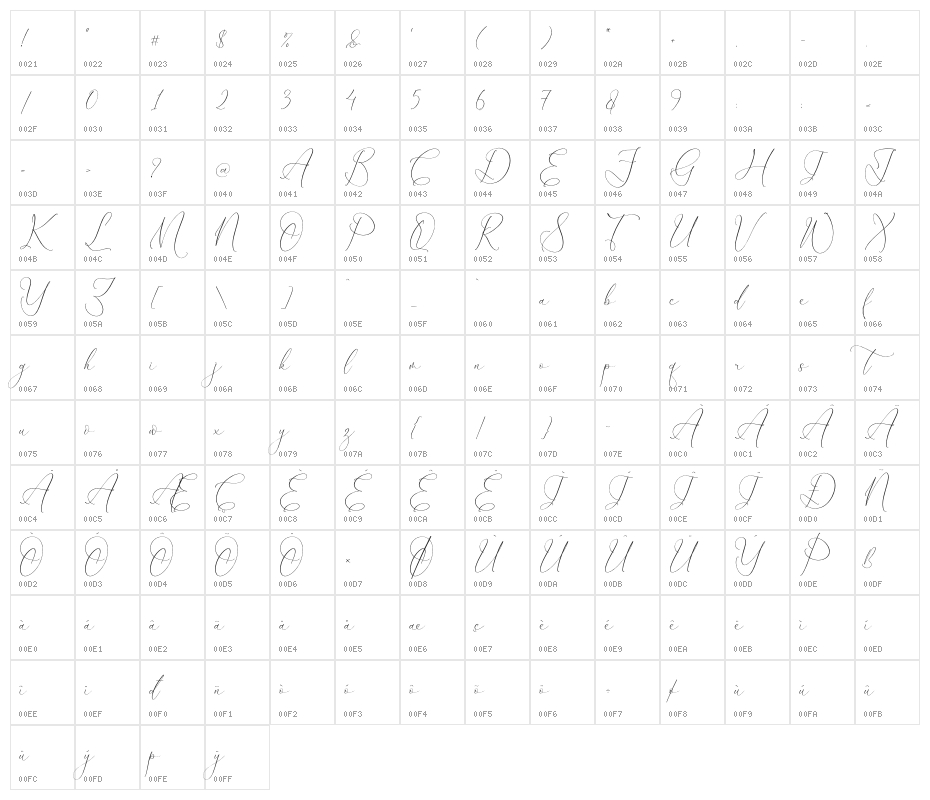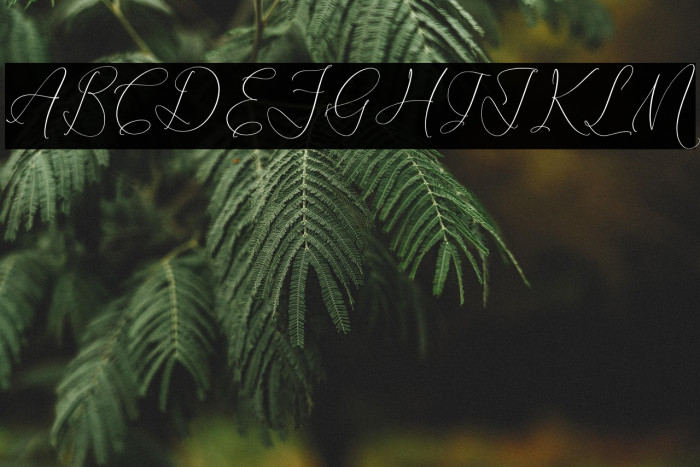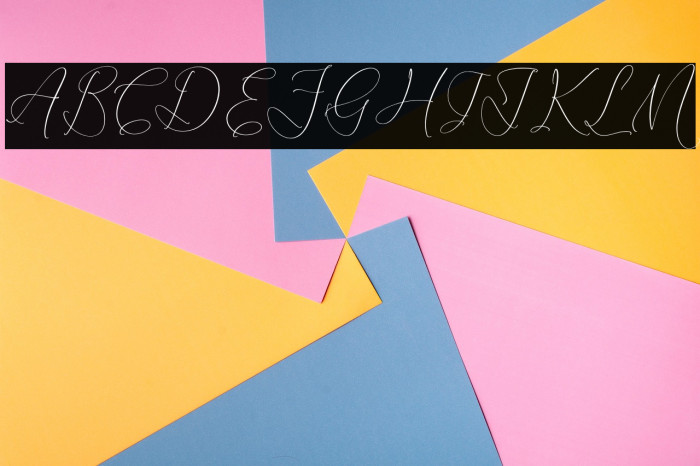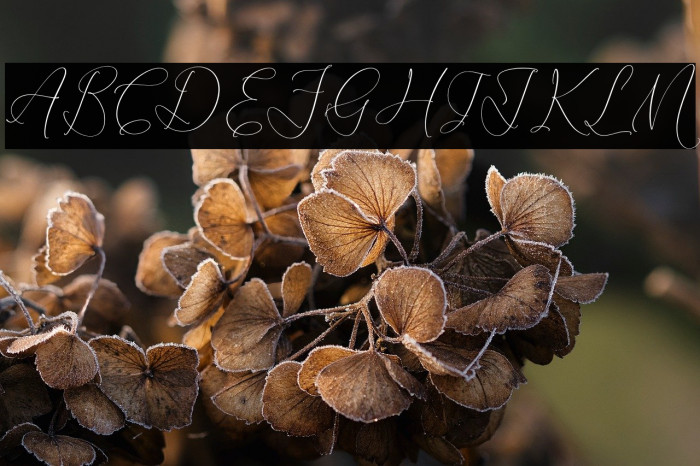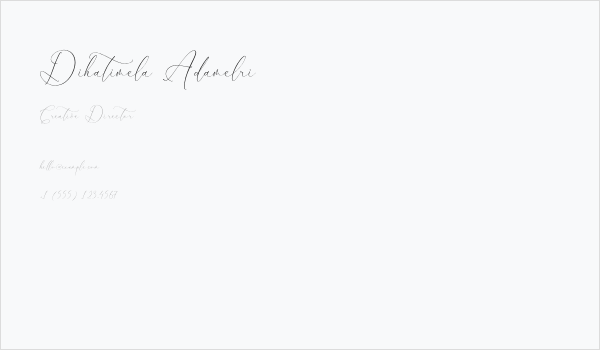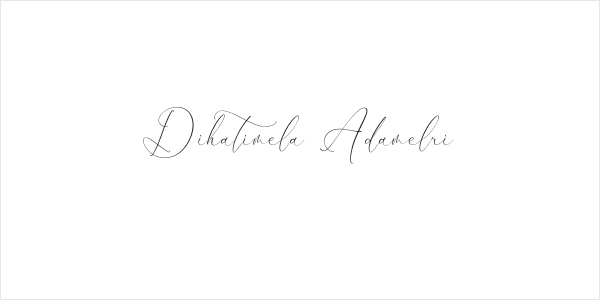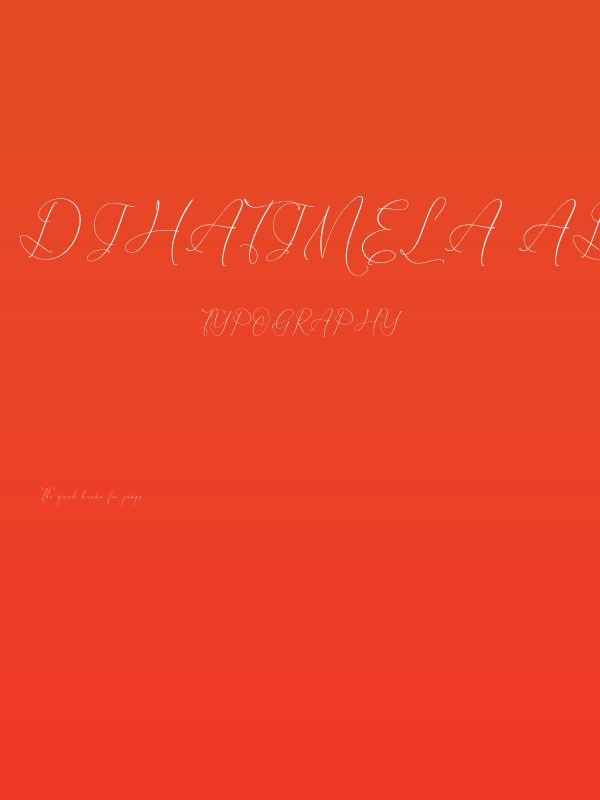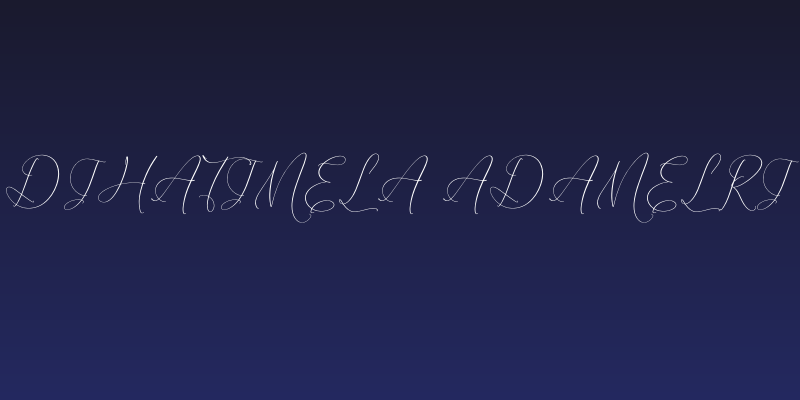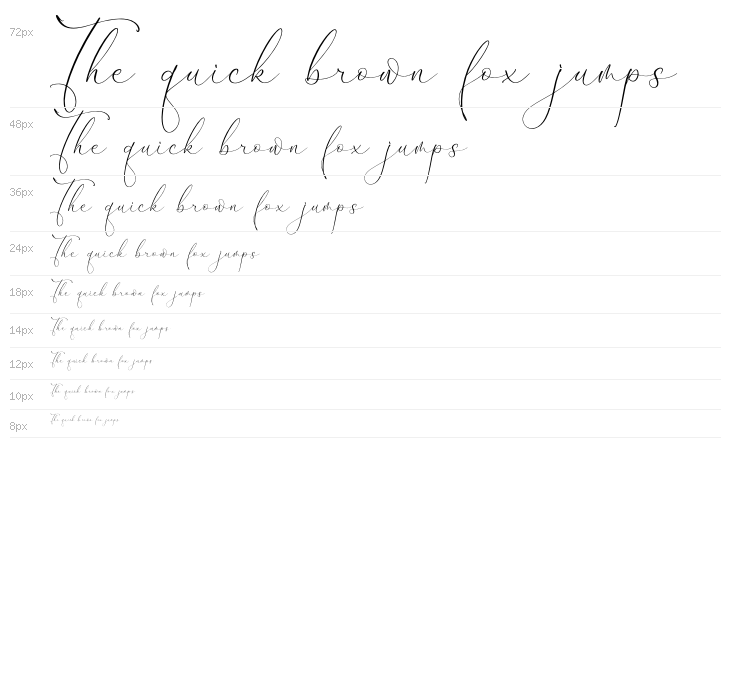
Dihatimela Adamelri Font
Dihatimela Adamelri Description
Elegant and flowing script font with delicate, thin strokes and intricate swashes.
| Use Case | Logos, Invitations, Decorative text. |
| Proposed Projects | Wedding invitations, elegant branding, personal stationery. |